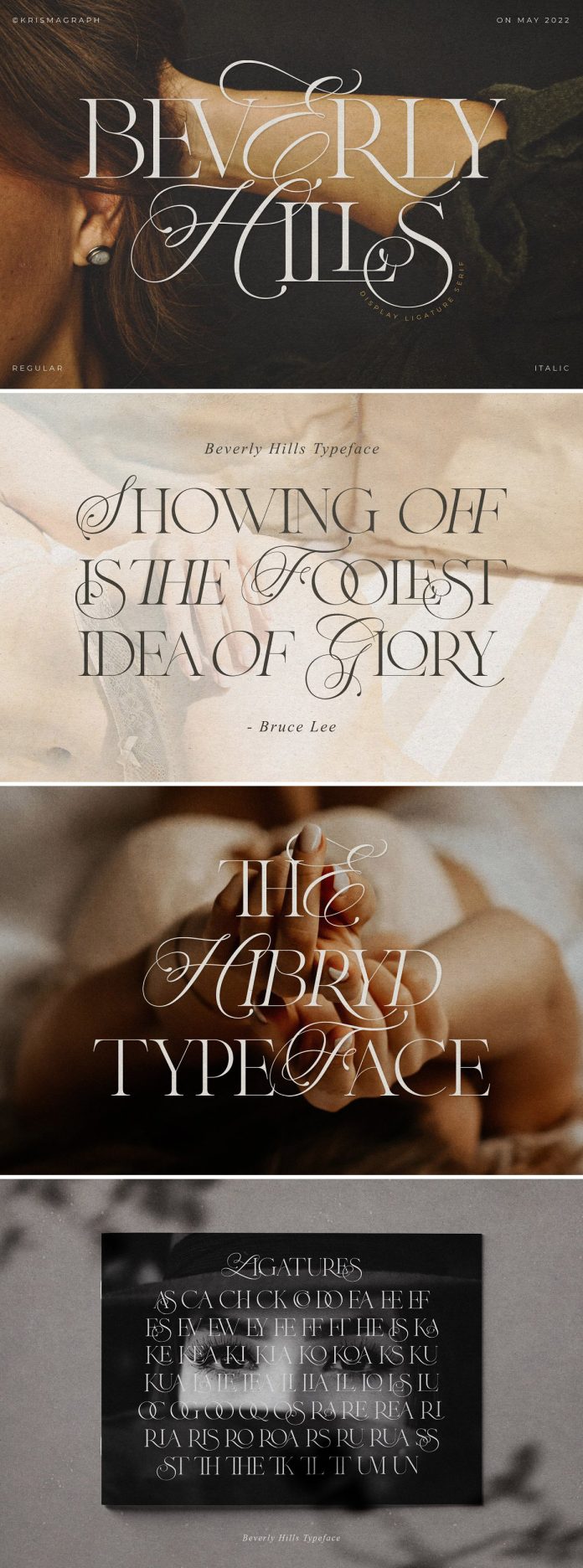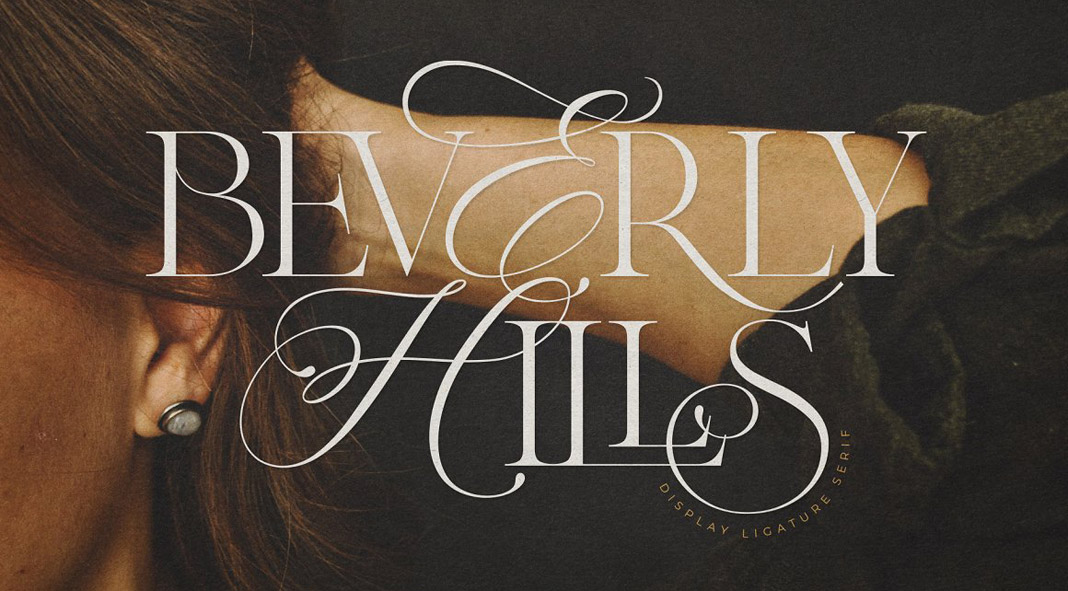
Beverly Hills, an elegant typeface that comes with ligatures.
The Beverly Hills typeface was designed and published by Krismagraph. It masterfully combines classic calligraphy with elegant serif styles. Equipped with two versions regular and italic, the Beverly Hills font comes with 56 unique ligatures. You can use it for headlines, titles, and other short text sections in advertising, vintage mood boards, branding, logotypes, packaging, titles, editorial design, modern logos, websites, social media quotes, and wedding invitations, just to name a few. Just click on the following link to learn more.